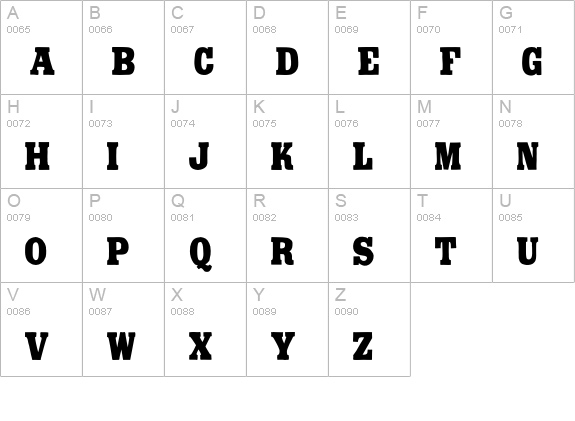
Bold Pressing H0 is a strong, high-contrast variant in the Bold typeface family \xE2\x80\x94 well suited to headlines, attention-grabbing titles, and strong calls-to-action.
Bold Pressing H0 font is a striking and powerful typeface that exudes confidence and assertiveness. With its bold weight and unique design, this font is perfect for making a statement and commanding attention in any project. The strong, bold lines of Bold Pressing H0 convey a sense of strength and determination, making it ideal for headlines, titles, and branding materials. What's even better is that Bold Pressing H0 font is available for free download at FontsMarket.com. This means you can easily add this impactful font to your collection without any cost, making it a valuable resource for your design projects. Don't miss out on the opportunity to enhance your work with the bold and dynamic Bold Pressing H0 font. Download it today and make a lasting impression with your designs.